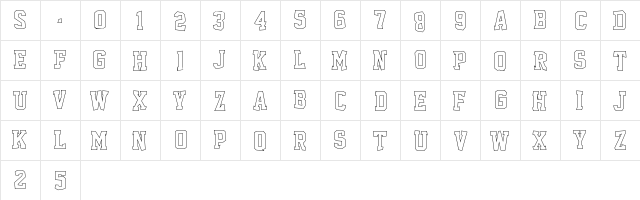
Outcast M54 Regular Font Preview
Outcast M54 Regular
Outcast M54 Regular Font Details
| Foundry | M54 (justme54s) |
| Designer | Mohammed Rahman |
Design Context for Outcast M54 Typeface
Outcast M54 is a composed and adaptable typeface that performs quietly and consistently across a wide range of design contexts.